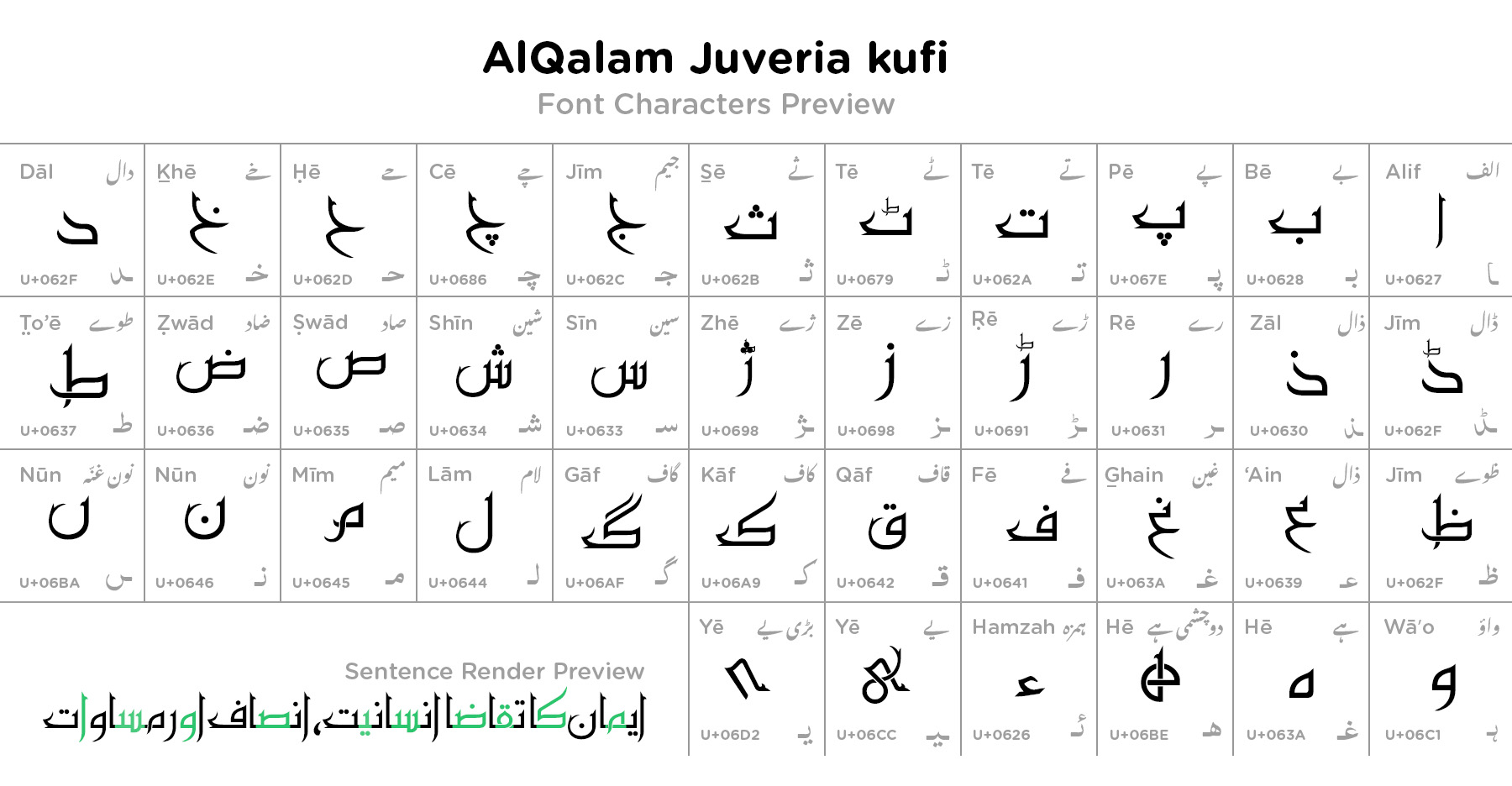
Introducing Al Qalam Juveria Kufi, a captivating Urdu font crafted by Pakistani calligrapher Muhammad Ishtiaq Ali Attari. Inspired by modern Naskh and Kufic script, this font combines calligraphic elegance with decorative elements. Released on November 14, 2019, it boasts 62 characters and 373 glyphs, ensuring compatibility across Urdu, Arabic, Latin, and more languages. Its letterform has a unique design with slight curves on the tops of some letters and small notches on the ends of others. Its moderate legibility on screen makes it suitable for short creative projects, although low resolutions may pose readability challenges due to its intricate design. With varying thicknesses and impactful strokes, Al Qalam Juveria Kufi offers sophistication and creativity to whichever text or project you use it with. Its slight curves and sharp corners add a unique touch to each letter, enhancing its decorative appeal. However, its availability in only regular font weight limits its practicality. Ideal for branding, advertising headers, book covers, and other creative endeavors, this font elevates any project with its distinctive look and feel. Moreover, its compatibility with Unicode blocks facilitates smooth integration into various design software and platforms.